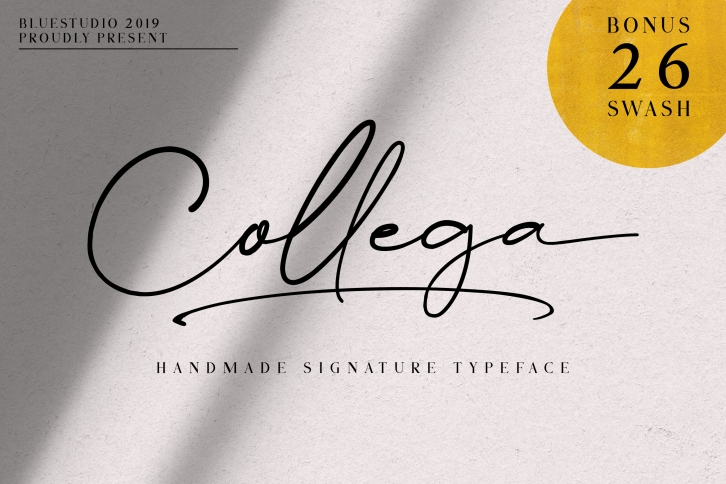
Collega Handmade Signature Typeface is a great font that was designed by Bluestudio. Imagine the amount of combinations you can create using this font! The archive is 6.67 MB and it was released on October 17, 2019. Collega Handmade Signature Typeface looks beautiful on wedding invitations, greeting cards, logos, posters, labels, t-shirt designs, logos, business cards and is perfect for use in ink or watercolor works, fashion, magazines, packaging and food menus, children's books and more!